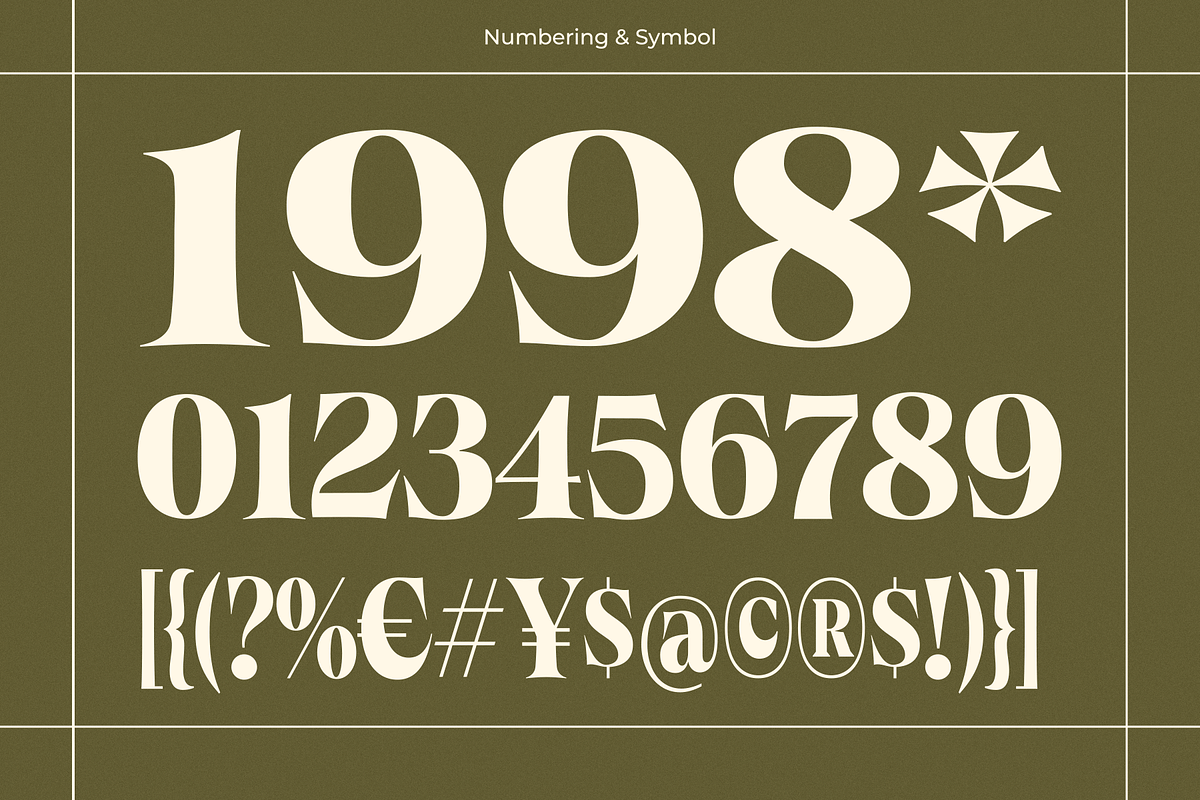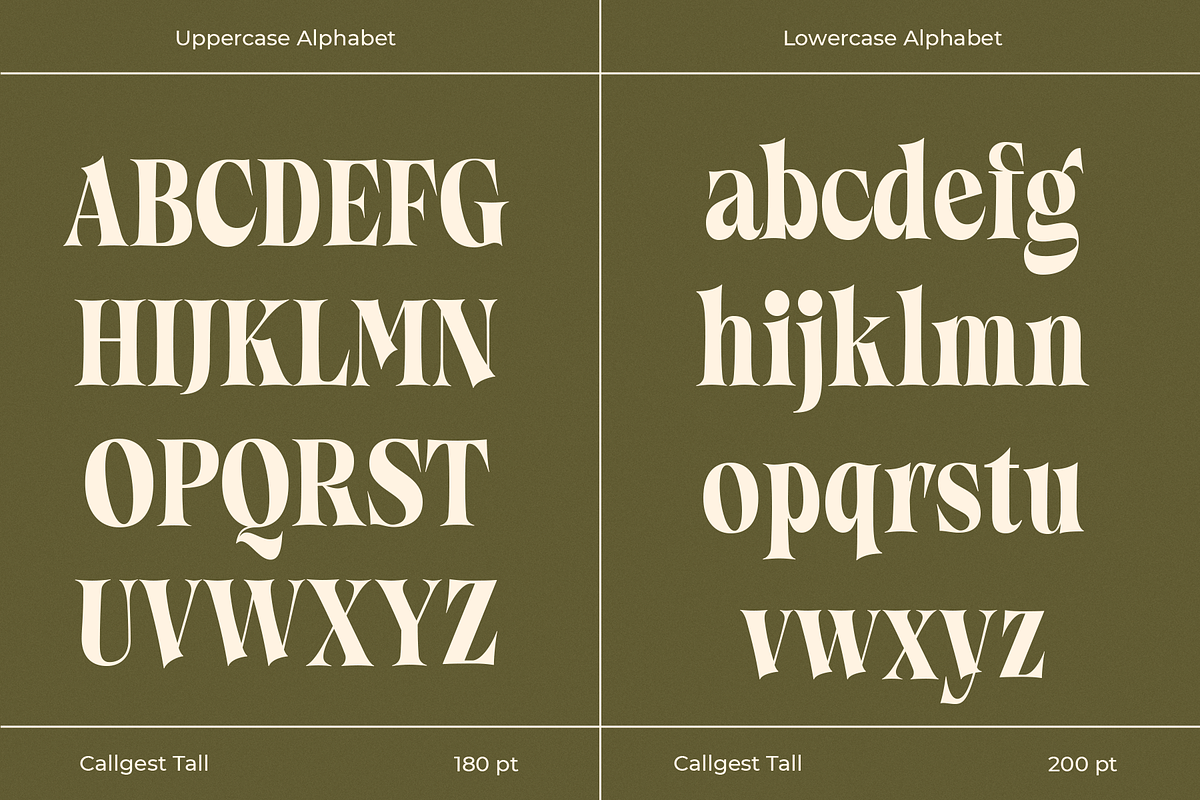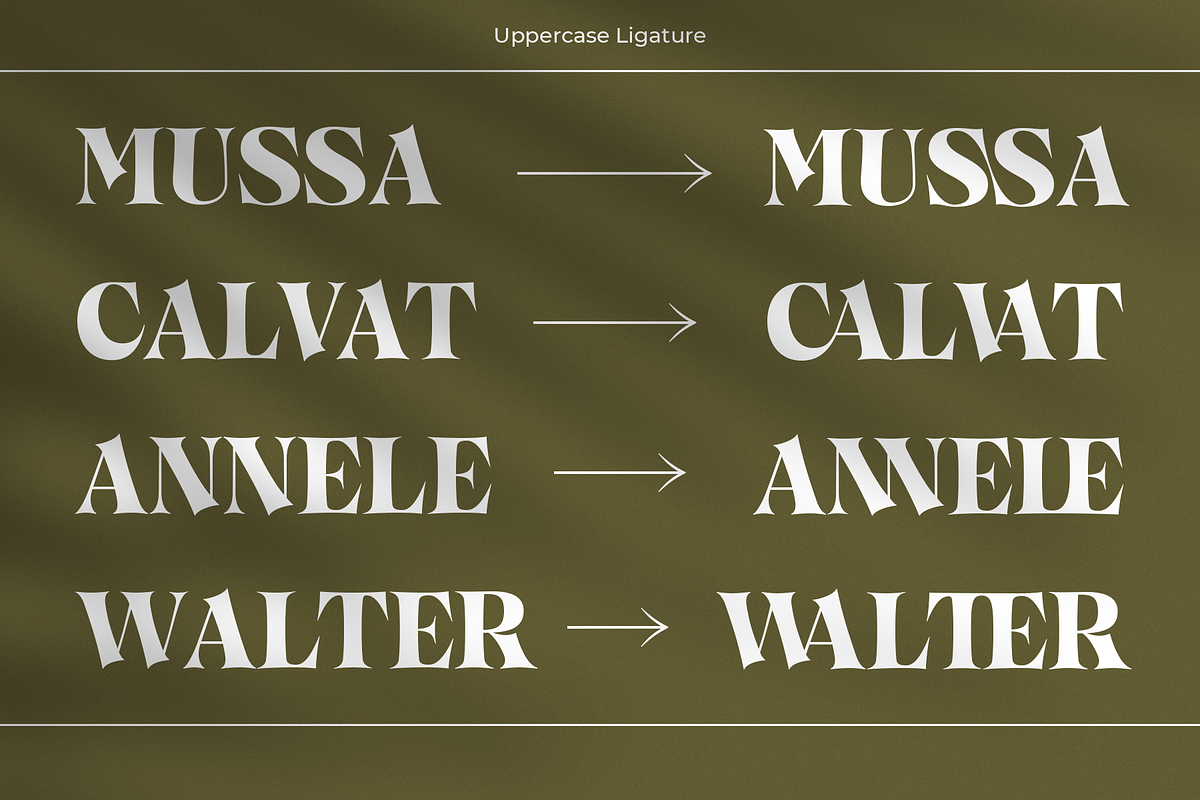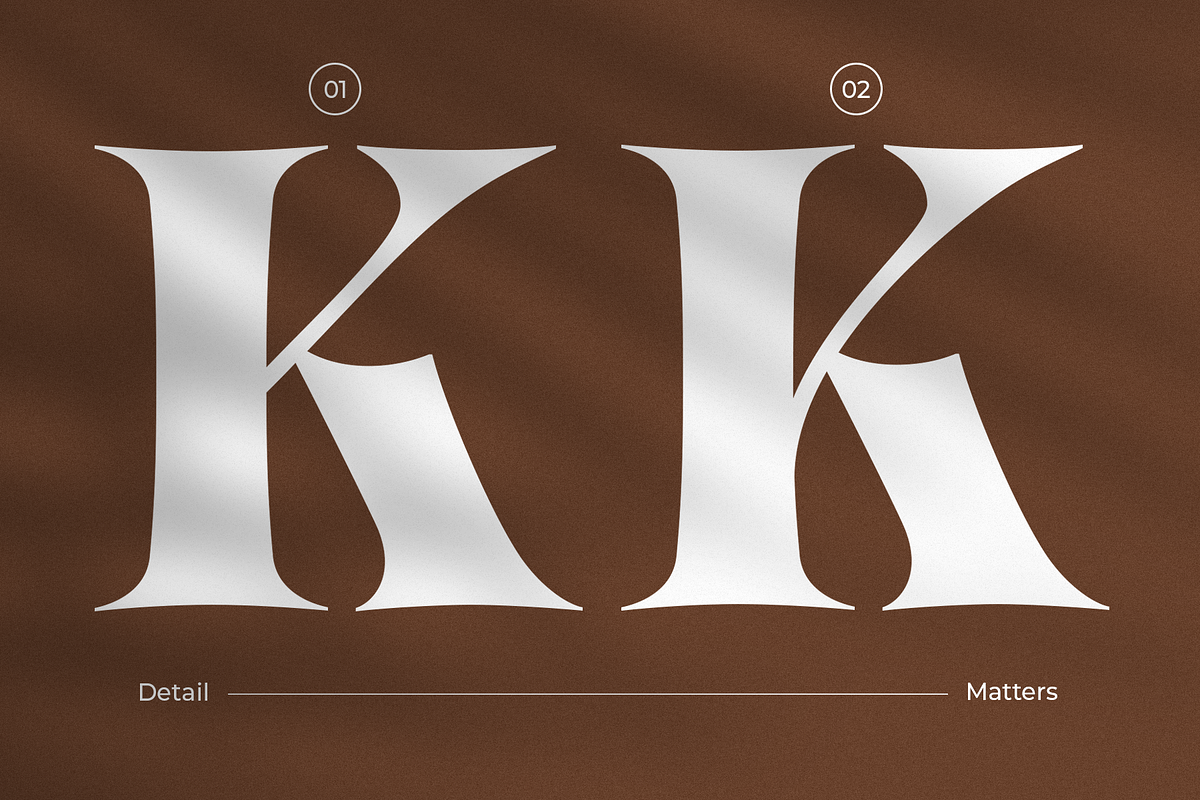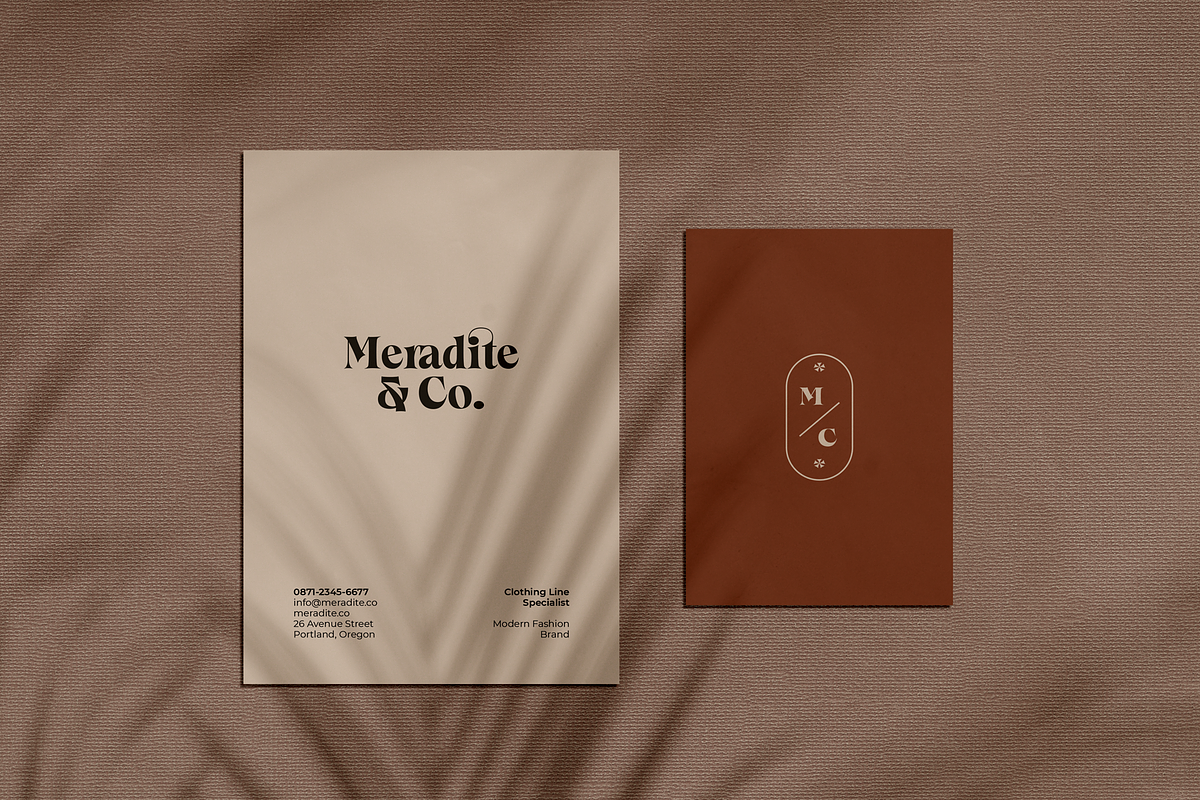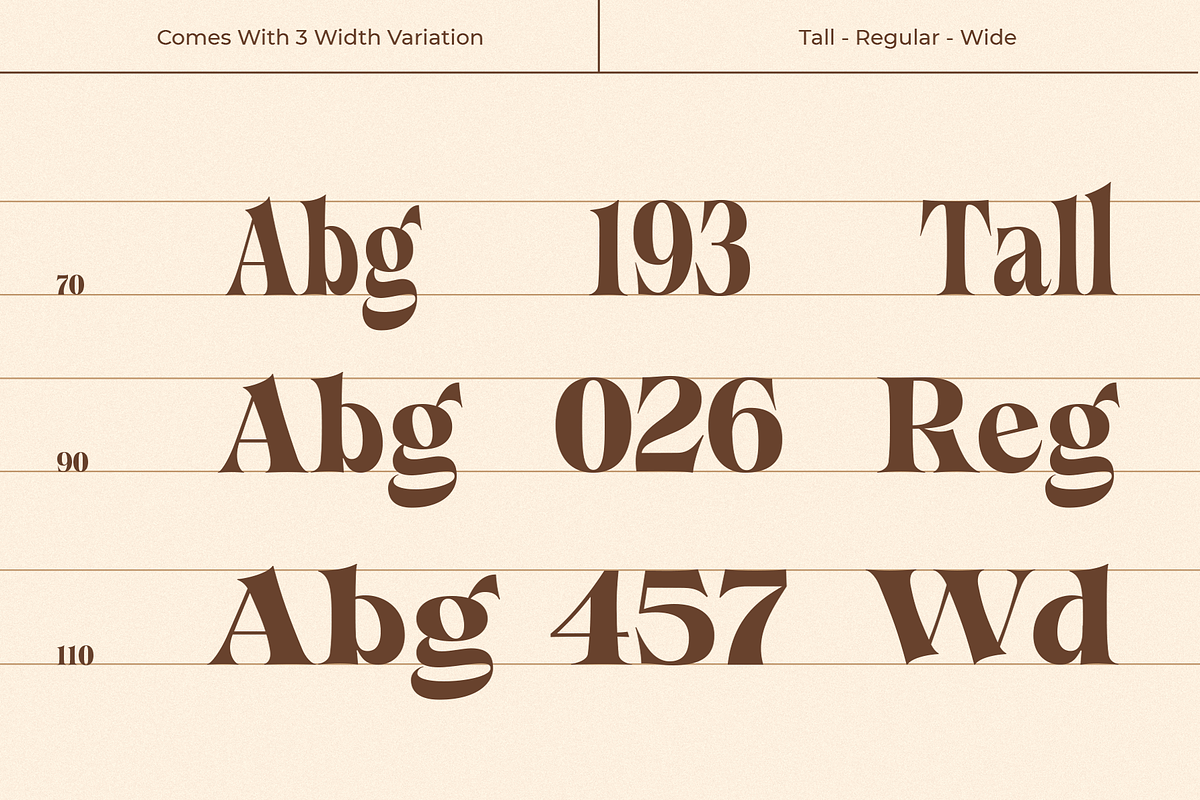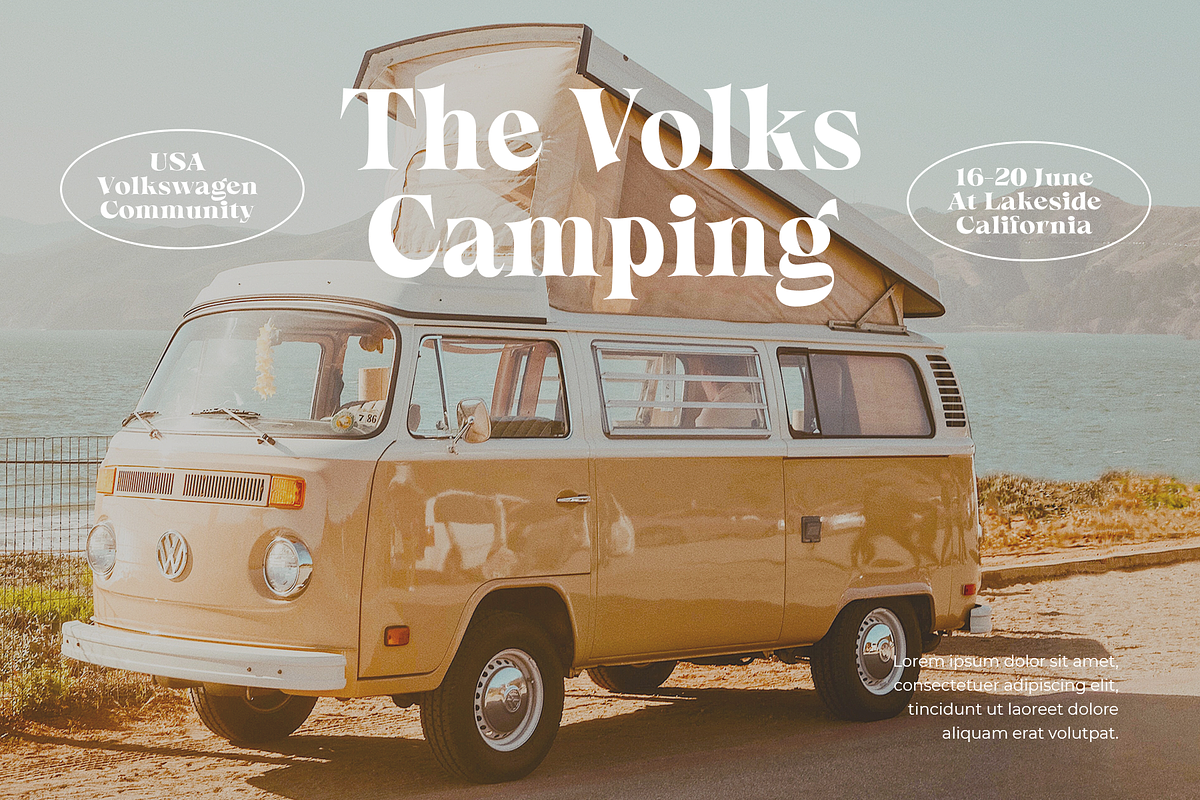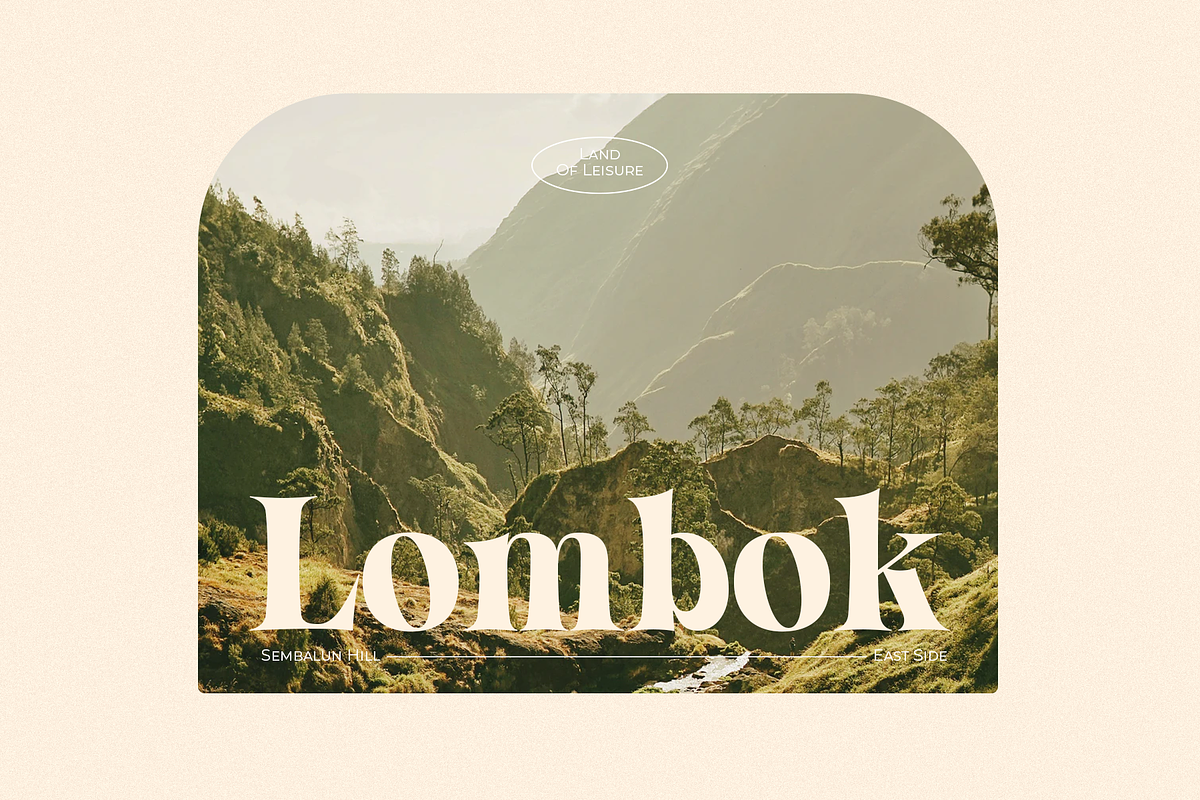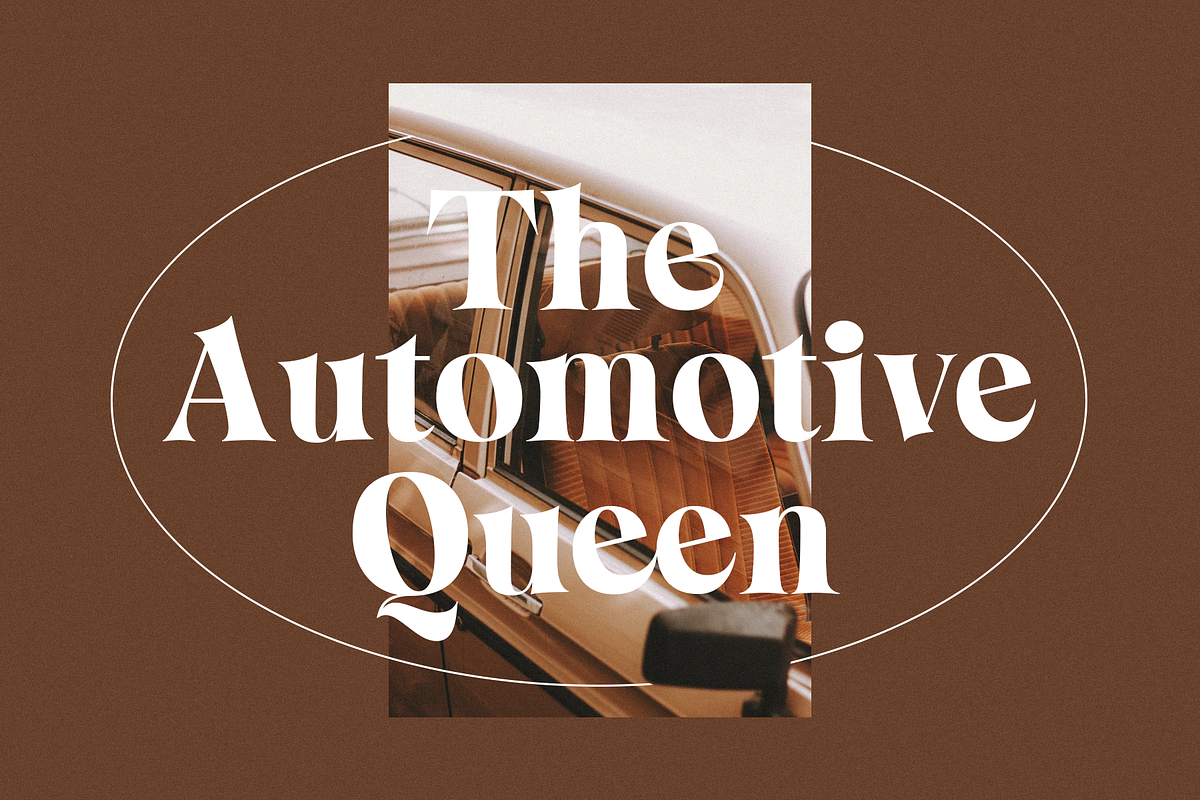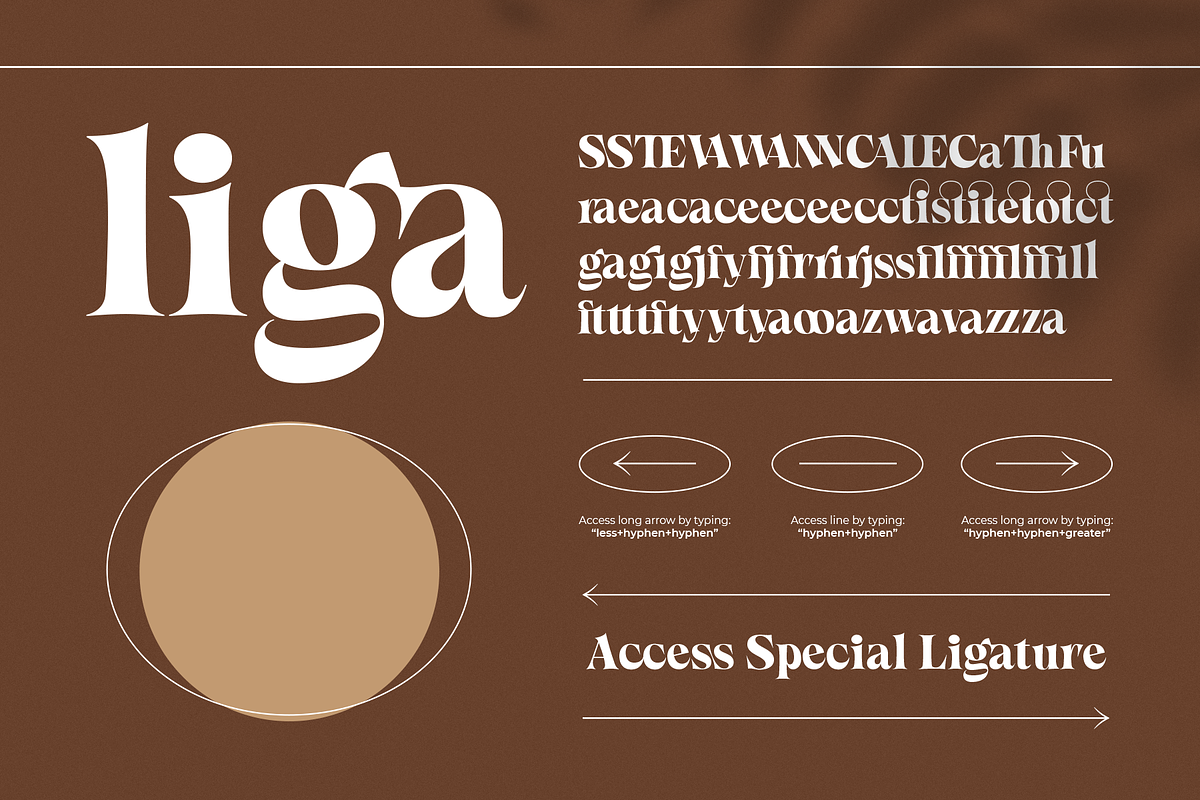
Callgest Display Font - 3 Styles
Introducing Callgest serif display. A brand new font with tapered serif, made with love to make it more versatile and stylish. This font also suitable for Branding Design, Logotype, Wedding Invitation, Headline, Posters, Business Card and etc. You can combine with Montserrat, Gotham, or Helvetica to make awful fusion combo font!
- Callgest Tall
- Callgest Regular
- Callgest Wide
Multilingual Support support many different languages 60+